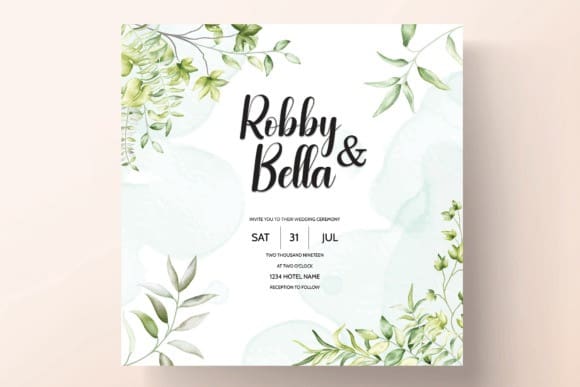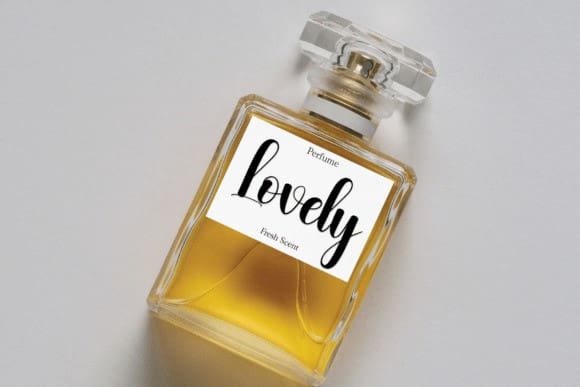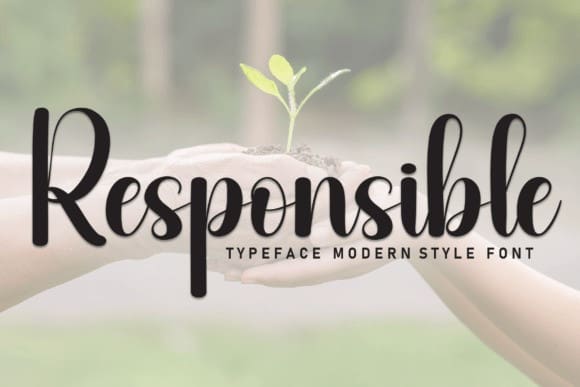
Responsible Script Typeface
Responsible Script Typeface is a sweet and friendly handwritten font. Fresh and cute, this font is ideal for writing wedding invitations, cards, or any other design that might need a fun touch!